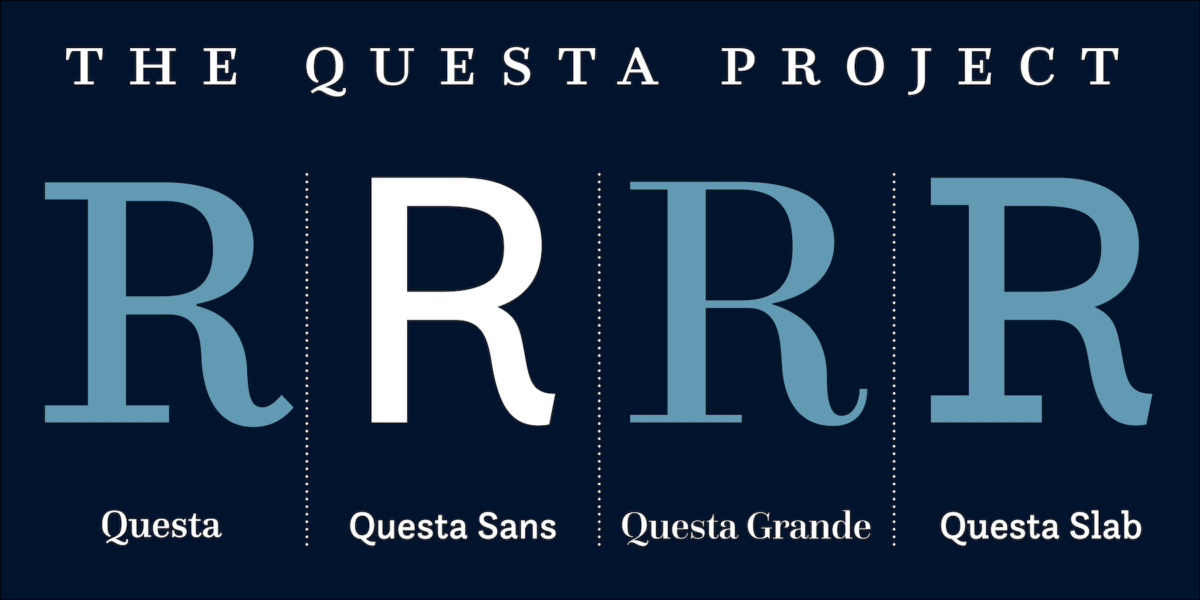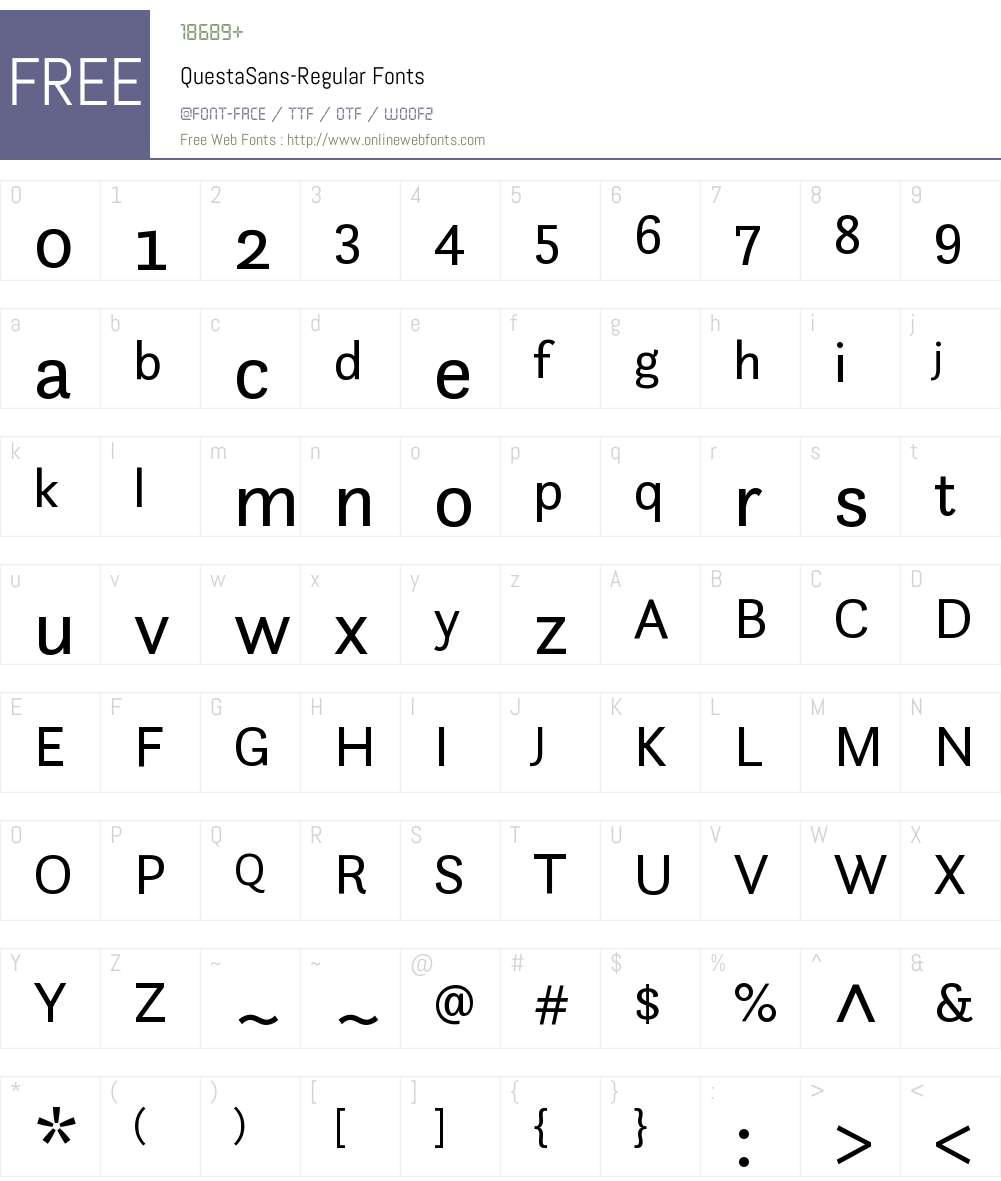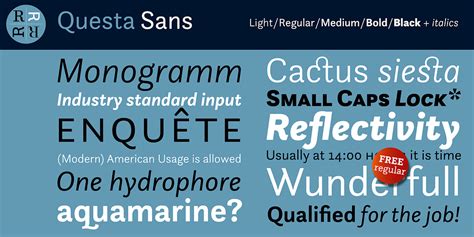
Questa Sans Font . It is part of a type system called the questa project, containing a serif,. It is part of a type system called the questa project, containing a serif, a matching sans and a matching.
This typeface has ten styles and was published by the questa project. Web explore questa sans designed by jos buivenga, martin majoor at adobe fonts. Martin majoor , jos buivenga
It is part of a type system called the questa project, containing a serif, a matching sans and a matching. Web questa sans is a sans serif typeface and counts 10 fonts. A sans serif typeface with 10 styles, available from. It is part of a type system called the questa project, containing a serif, a matching sans and a matching.
Questa Sans Font - It is part of a type system called the questa project, containing a serif,. This typeface has ten styles and was published by the questa project. Martin majoor , jos buivenga It is part of a type system called the questa project, containing a serif, a matching sans and a matching. Web questa sans is a sans serif typeface and.
Questa Sans Font - Web questa sans is a sans serif typeface and counts 10 fonts. Web explore questa sans designed by jos buivenga, martin majoor at adobe fonts. It is part of a type system called the questa project, containing a serif,. Web download and install the questa sans free. Web questa sans is a sans serif font family.
Questa Sans Font - Web questa sans is a sans serif typeface and counts 10 fonts. This typeface has ten styles and was published by the questa project. Web this project is characterised as an extended typographical family containing serif font, sans. A sans serif typeface with 10 styles, available from. It is part of a type system called the questa project, containing a.
Questa Sans Font - Web questa sans is a sans serif typeface and counts 10 fonts. A sans serif typeface with 10 styles, available from. It is part of a type system called the questa project, containing a serif,. This typeface has ten styles and was published by the questa project. Web this project is characterised as an extended typographical family containing serif font,.
Questa Sans Font - This typeface has ten styles and was published by the questa project. Web questa sans is a sans serif typeface and counts 10 fonts. Web explore questa sans designed by jos buivenga, martin majoor at adobe fonts. It is part of a type system called the questa project, containing a serif,. Martin majoor , jos buivenga
Questa Sans Font - Web questa sans is a sans serif typeface and counts 10 fonts. Web this project is characterised as an extended typographical family containing serif font, sans. It is part of a type system called the questa project, containing a serif, a matching sans and a matching. Web questa sans is a sans serif font family. Web questa sans is a.
Questa Sans Font - Web questa sans is a sans serif typeface and counts 10 fonts. It is part of a type system called the questa project, containing a serif, a matching sans and a matching. Web this project is characterised as an extended typographical family containing serif font, sans. It is part of a type system called the questa project, containing a serif,..
Questa Sans Font - Web this project is characterised as an extended typographical family containing serif font, sans. Web download and install the questa sans free. A sans serif typeface with 10 styles, available from. It is part of a type system called the questa project, containing a serif, a matching sans and a matching. Web questa sans is a sans serif font family.
Questa Sans Font - It is part of a type system called the questa project, containing a serif, a matching sans and a matching. Web questa sans is a sans serif typeface and counts 10 fonts. Web explore questa sans designed by jos buivenga, martin majoor at adobe fonts. Web questa sans is a sans serif typeface and counts 10 fonts. Martin majoor ,.
Questa Sans Font - A sans serif typeface with 10 styles, available from. Web this project is characterised as an extended typographical family containing serif font, sans. Web questa sans is a sans serif font family. Web explore questa sans designed by jos buivenga, martin majoor at adobe fonts. It is part of a type system called the questa project, containing a serif,.
Questa Sans Font - A sans serif typeface with 10 styles, available from. Web questa sans is a sans serif font family. Web explore questa sans designed by jos buivenga, martin majoor at adobe fonts. It is part of a type system called the questa project, containing a serif, a matching sans and a matching. This typeface has ten styles and was published by.
Questa Sans Font - Web this project is characterised as an extended typographical family containing serif font, sans. This typeface has ten styles and was published by the questa project. A sans serif typeface with 10 styles, available from. Web questa sans is a sans serif font family. Web questa sans is a sans serif typeface and counts 10 fonts.